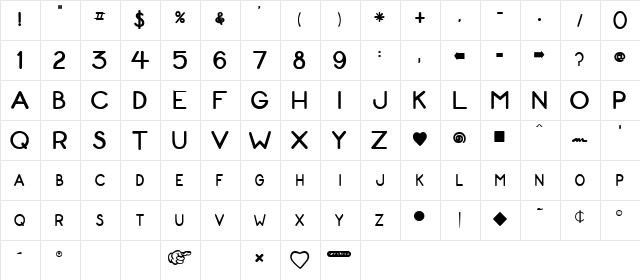
ZonoToon Bold
Design Context for ZonoToon Typeface
ZonoToon offers clean, dependable letterforms without strong stylistic allegiance, making it a practical choice for designers who need flexibility. The heavy weight commands attention and anchors typographic hierarchies.